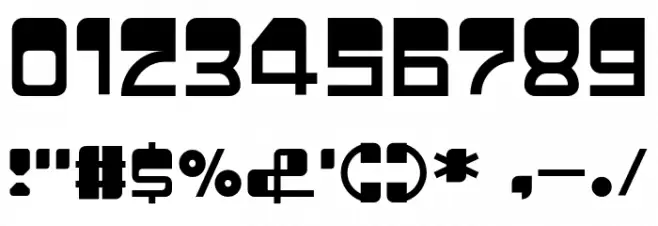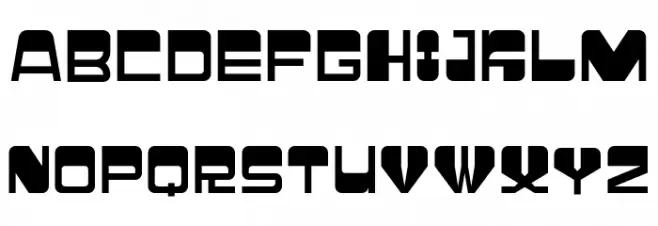
coventry Font
coventry Description
This font features a bold and geometric design with a futuristic appeal. The characters are constructed with a combination of sharp angles and rounded edges, creating a unique and modern aesthetic. The uppercase and lowercase letters maintain a consistent style, with some characters displaying distinctive cutouts and shapes that add to the font's dynamic appearance. The numbers and special characters follow the same design principles, ensuring a cohesive look across all glyphs. This font is well-suited for projects that require a bold and eye-catching typeface.
A bold, geometric font with a futuristic and modern design from Uncategorized fonts.
- Proposed Projects: Ideal for branding, posters, headlines, and any design that requires a strong visual impact.